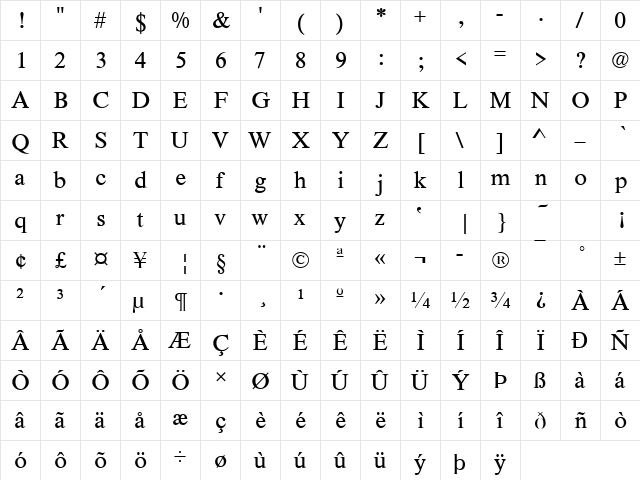
Nimbus Roman Becker No2TReg Regular Font Preview
Nimbus Roman Becker No2TReg Regular
Design Context for Nimbus Roman Becker No2TReg Typeface
Nimbus Roman Becker No2TReg takes a measured approach to typography — its balanced proportions and neutral character make it a reliable workhorse for both digital and print work.